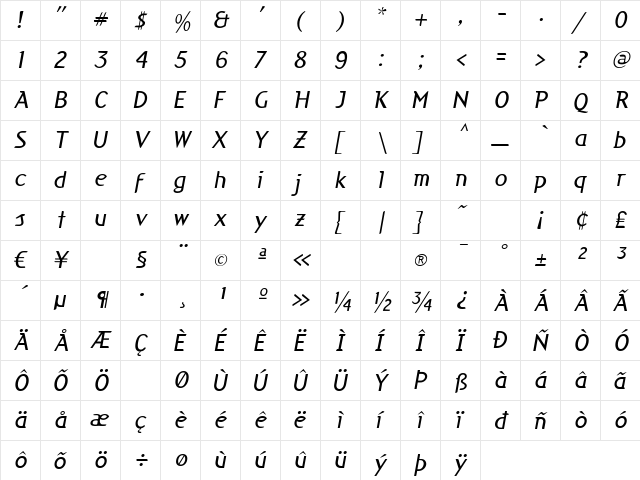
Cuban LightItalic
Design Context for Cuban Typeface
Cuban takes a measured approach to typography — its balanced proportions and neutral character make it a reliable workhorse for both digital and print work. The slanted form adds forward momentum and visual energy. Its slender proportions lend an understated elegance to any composition.
Pro Tip: Try Cuban for annotation and caption copy alongside an upright companion — the contrast in angle creates a dynamic but ordered typographic system.